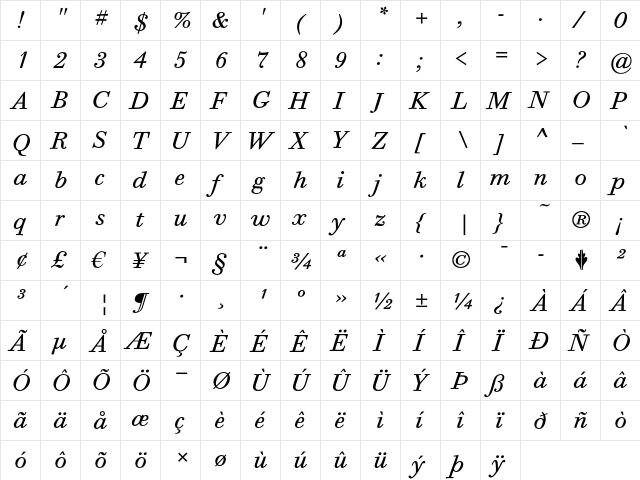
Bodoni Six ITC Book Italic Font Preview
Bodoni Six ITC Book Italic
Bodoni Six ITC Book Italic Font Details
Design Context for Bodoni Six ITC Typeface
Bodoni Six ITC offers clean, dependable letterforms without strong stylistic allegiance, making it a practical choice for designers who need flexibility. The slanted form adds forward momentum and visual energy.
Pro Tip: Try Bodoni Six ITC for annotation and caption copy alongside an upright companion — the contrast in angle creates a dynamic but ordered typographic system.